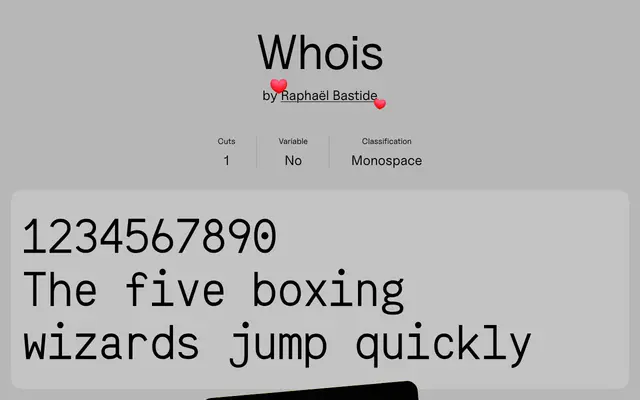
Whois
A single-cut monospaced typeface by Raphaël Bastide, released under the SIL Open Font Licence for free commercial and personal use.
A minimal monospaced type with one cut and no variable axis, designed by Raphaël Bastide. Available freely under the SIL Open Font Licence 1.1, which permits commercial use, modification and redistribution with certain conditions. Suited to coding environments, terminal interfaces or any setting requiring fixed-width setting.
Explicitly classified as Monospace by the foundry; a single-cut monospaced typeface with no variable axis.